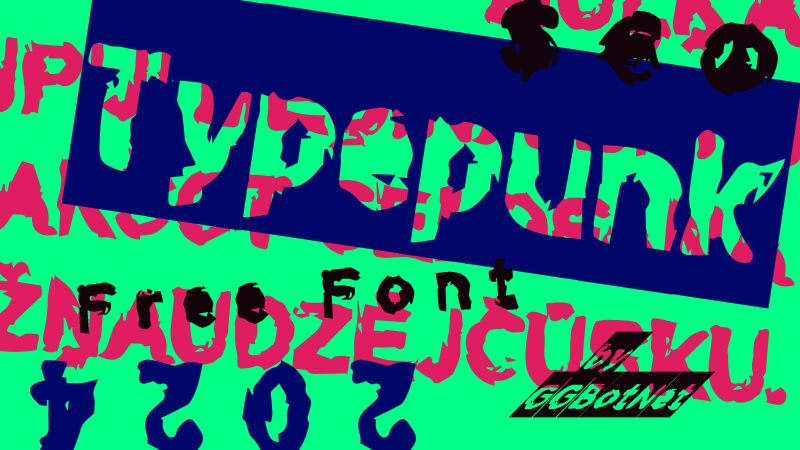
Typepunk Bold
Typepunk Bold font by GGBotNet invigorates designs with a rebellious aesthetic and modern grunge feel. This display font’s unconventional shapes and distressed texture evoke the punk culture, while its eroded negative style adds an edgy dimension. Unapologetically rugged, this bold font dominates any visual project by establishing a strong alternative impact.
Powerful yet versatile, the free punk font is suitable for contemporary uses including music event posters, album covers, or magazine headlines. Skinny book titles and brand identity projects can also benefit from the rebellious touch of Typepunk which will visually capture individuality while conveying a sense of defiance.